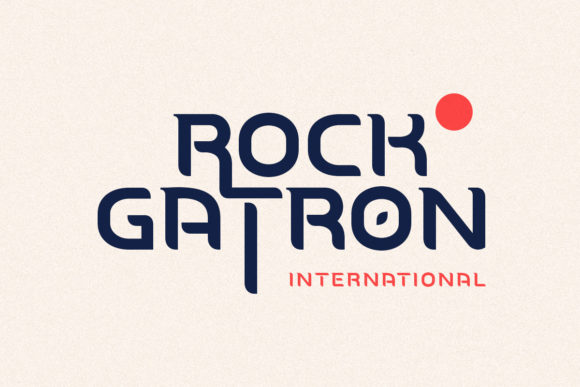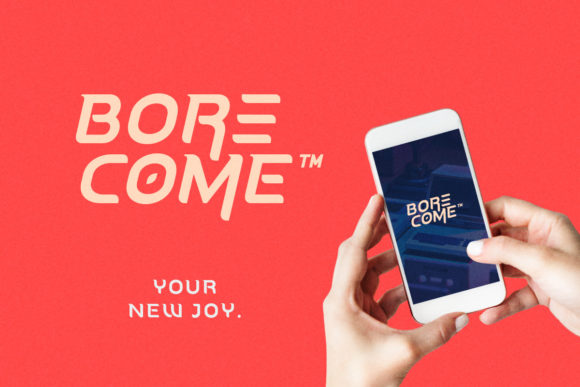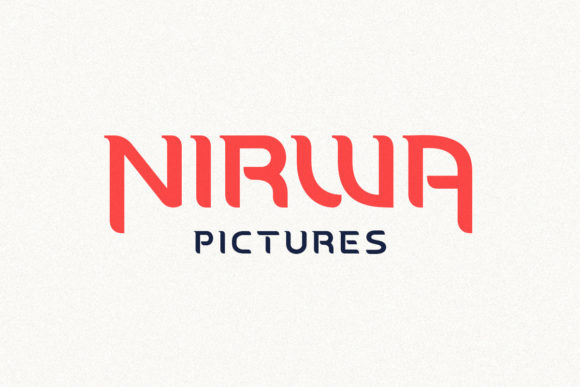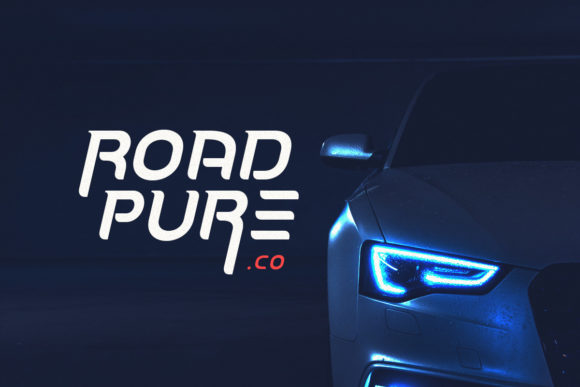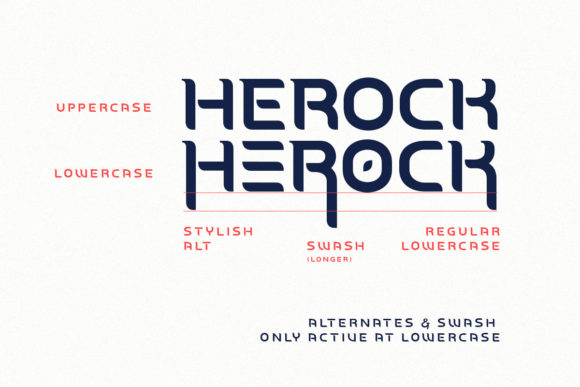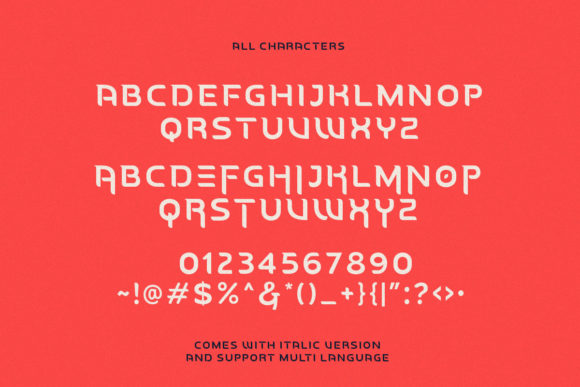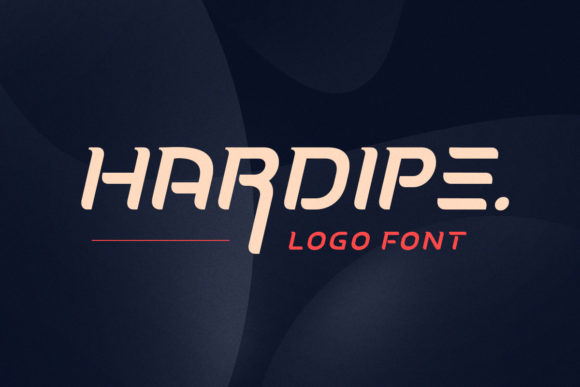
Introducing Hardipe Font: The Ultimate Choice for Trendy and Cool Designs
Are you a designer or crafter looking for a font that can add a touch of uniqueness and coolness to your designs? Look no further than Hardipe Font! This trendy and cool display font is perfect for creating eye-catching logos, branding, and posters that will leave a lasting impression on your audience.
What Makes Hardipe Font So Special?
Hardipe Font is not just another ordinary font. Every letter has a unique and cool touch that will make your design come alive! The font’s distinctive style is perfect for designers who want to add a bit of personality to their work. Whether you’re creating a logo, branding materials, or posters, Hardipe Font is the perfect choice.
Key Features of Hardipe Font
- Trendy and Cool Design: Hardipe Font has a modern and stylish design that will make your work stand out from the crowd.
- Unique Lettering: Every letter in Hardipe Font has a unique and cool touch that will add personality to your designs.
- Display Font: Hardipe Font is a display font, making it perfect for headlines, titles, and other display purposes.
- Easy to Read: Despite its unique design, Hardipe Font is easy to read, making it perfect for use in a variety of design applications.
Why Choose Hardipe Font?
So, why should you choose Hardipe Font for your design needs? Here are just a few reasons:
- Stand Out from the Crowd: With Hardipe Font, you can create designs that are truly unique and eye-catching.
- Perfect for Logos and Branding: The font’s distinctive style makes it perfect for creating logos and branding materials that will leave a lasting impression.
- Versatile: Hardipe Font can be used in a variety of design applications, from posters to social media graphics.
How to Use Hardipe Font in Your Designs
Using Hardipe Font in your designs is easy! Here are a few tips:
- Pair it with Other Fonts: Hardipe Font looks great when paired with other fonts. Try pairing it with a clean sans-serif font for a stylish contrast.
- Experiment with Colors: Hardipe Font looks great in a variety of colors. Experiment with different colors to find the perfect look for your design.
- Use it for Headlines and Titles: Hardipe Font is perfect for use in headlines and titles. Use it to add a touch of personality to your designs.
In conclusion, Hardipe Font is a trendy and cool display font that is perfect for designers and crafters who want to add a touch of uniqueness and coolness to their designs. With its distinctive style and versatile design, Hardipe Font is the perfect choice for creating eye-catching logos, branding, and posters. So why wait? Try Hardipe Font today and take your designs to the next level!